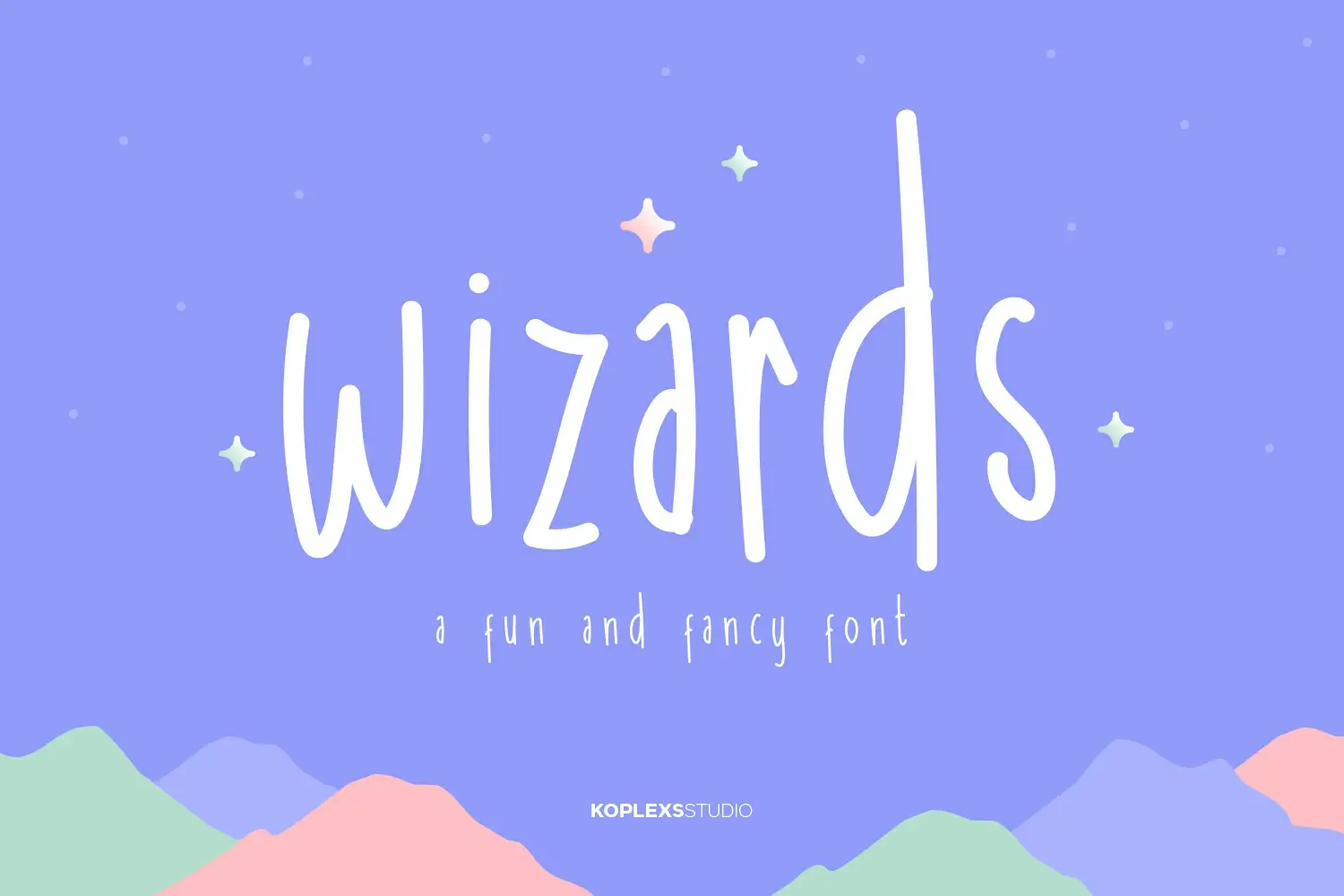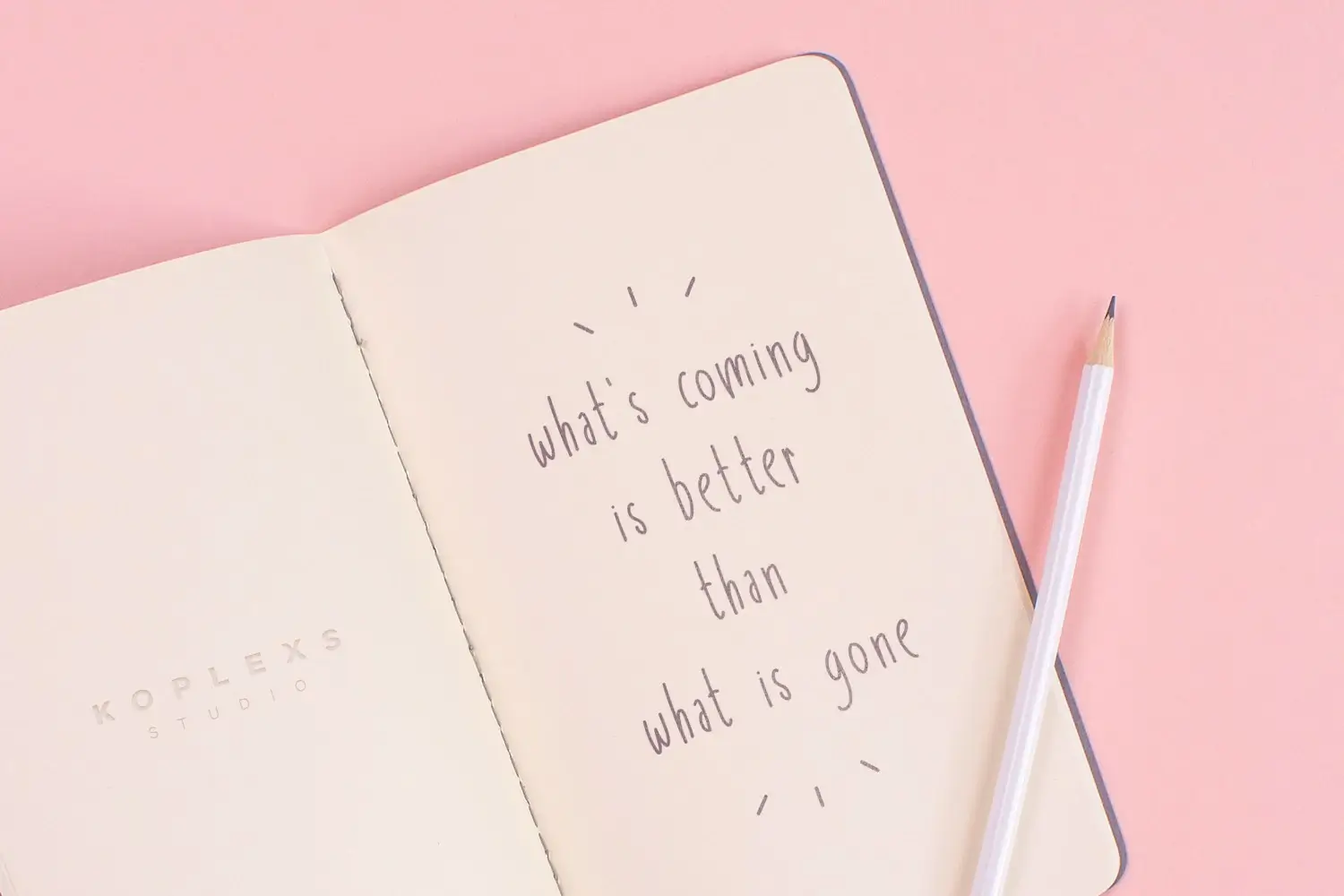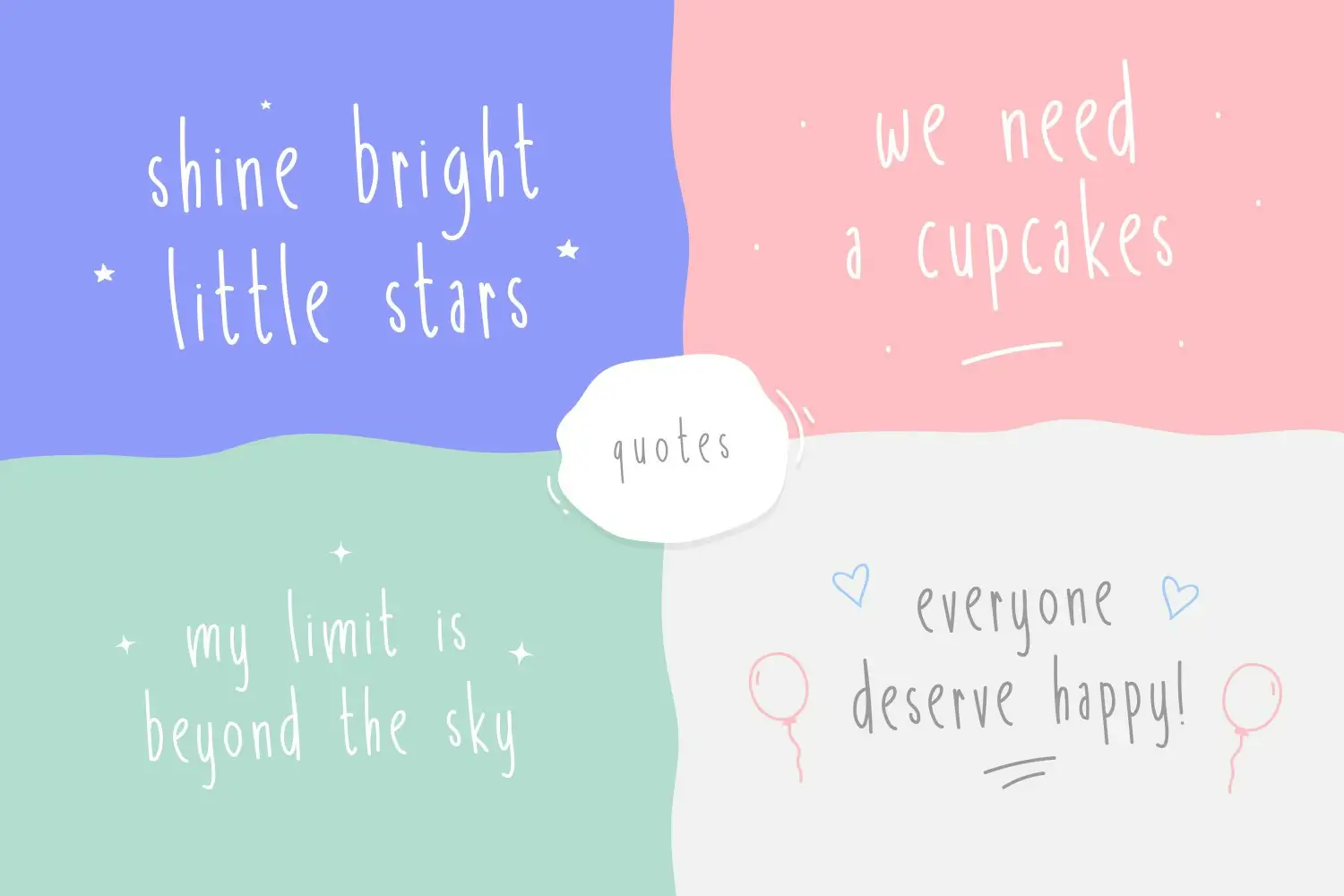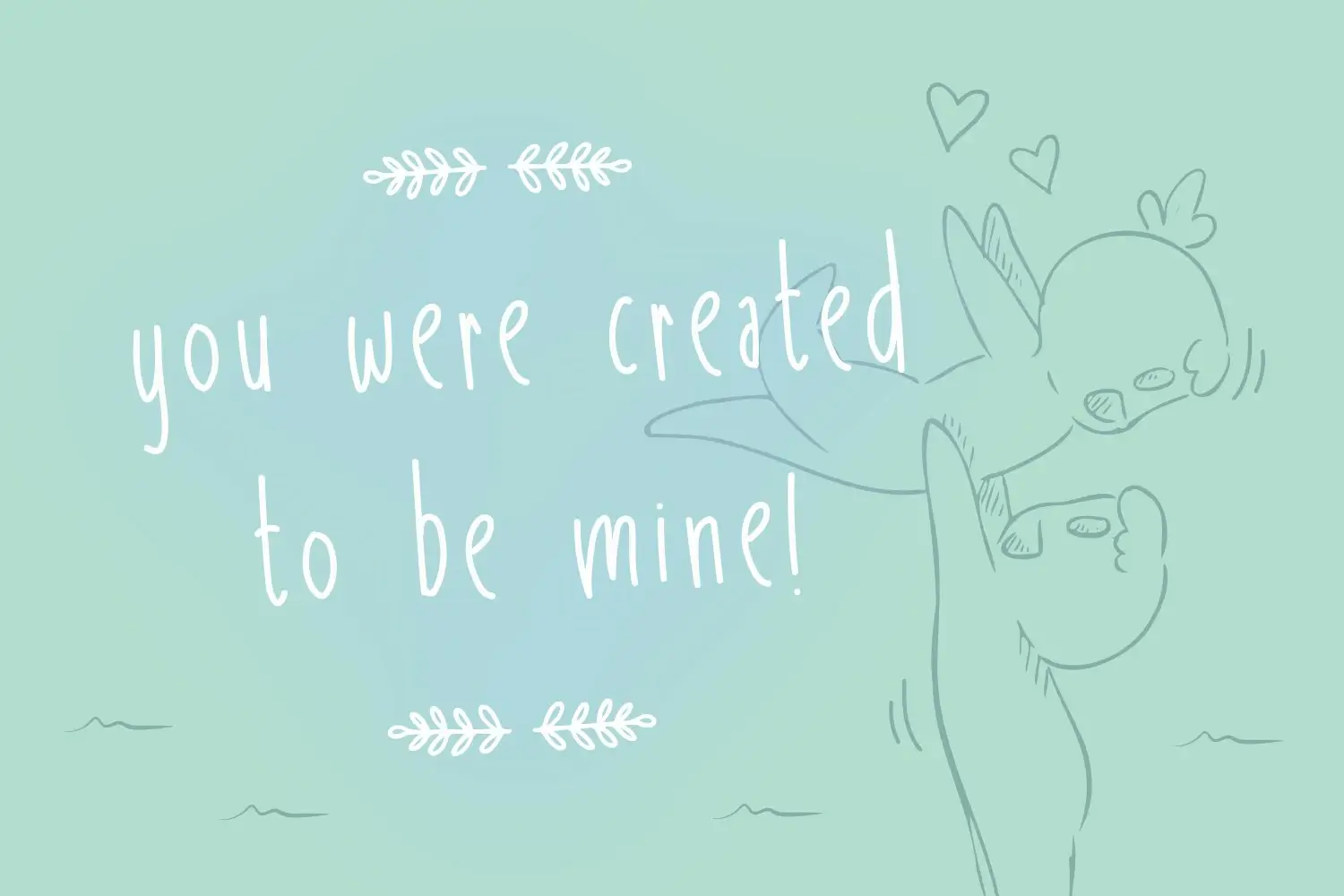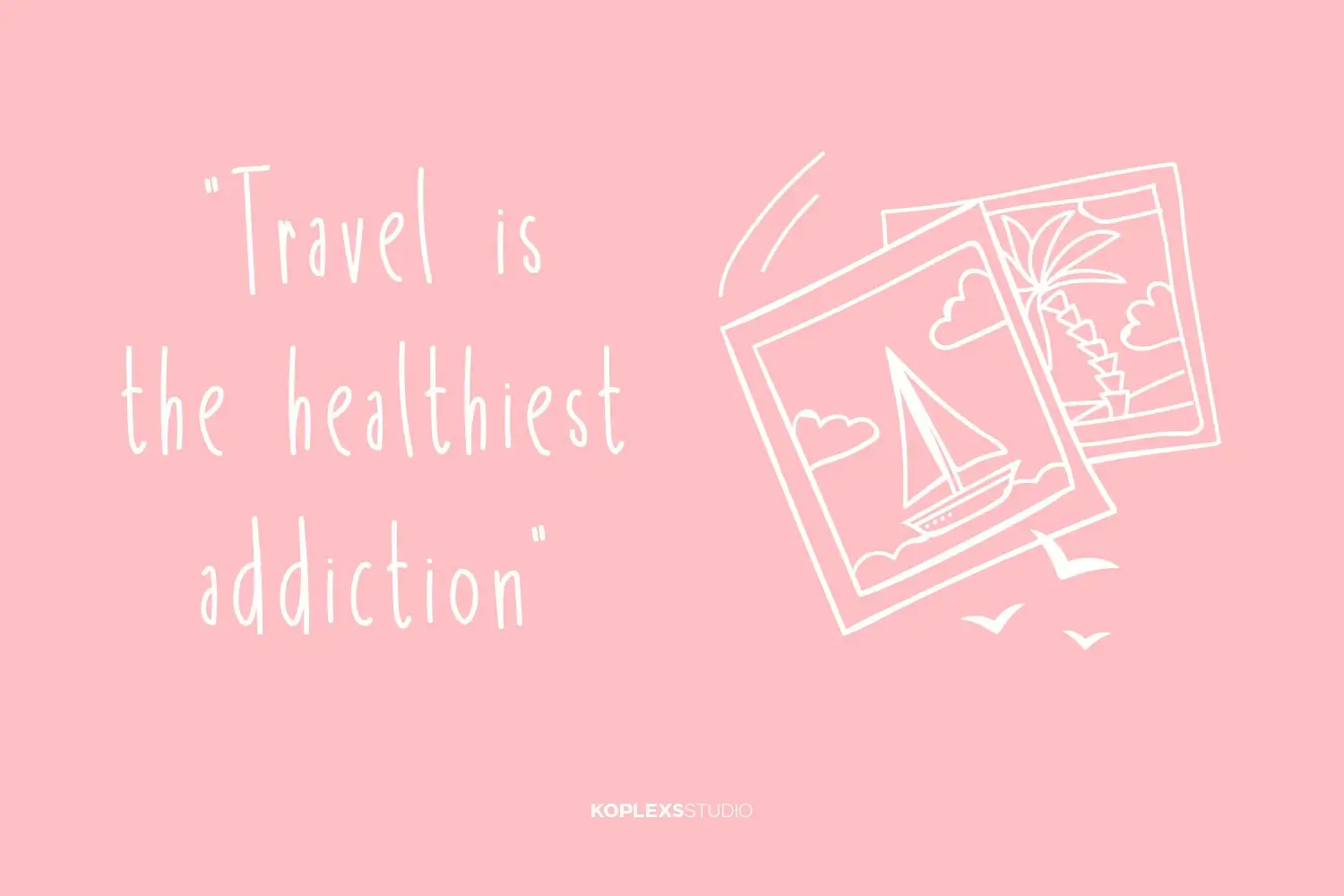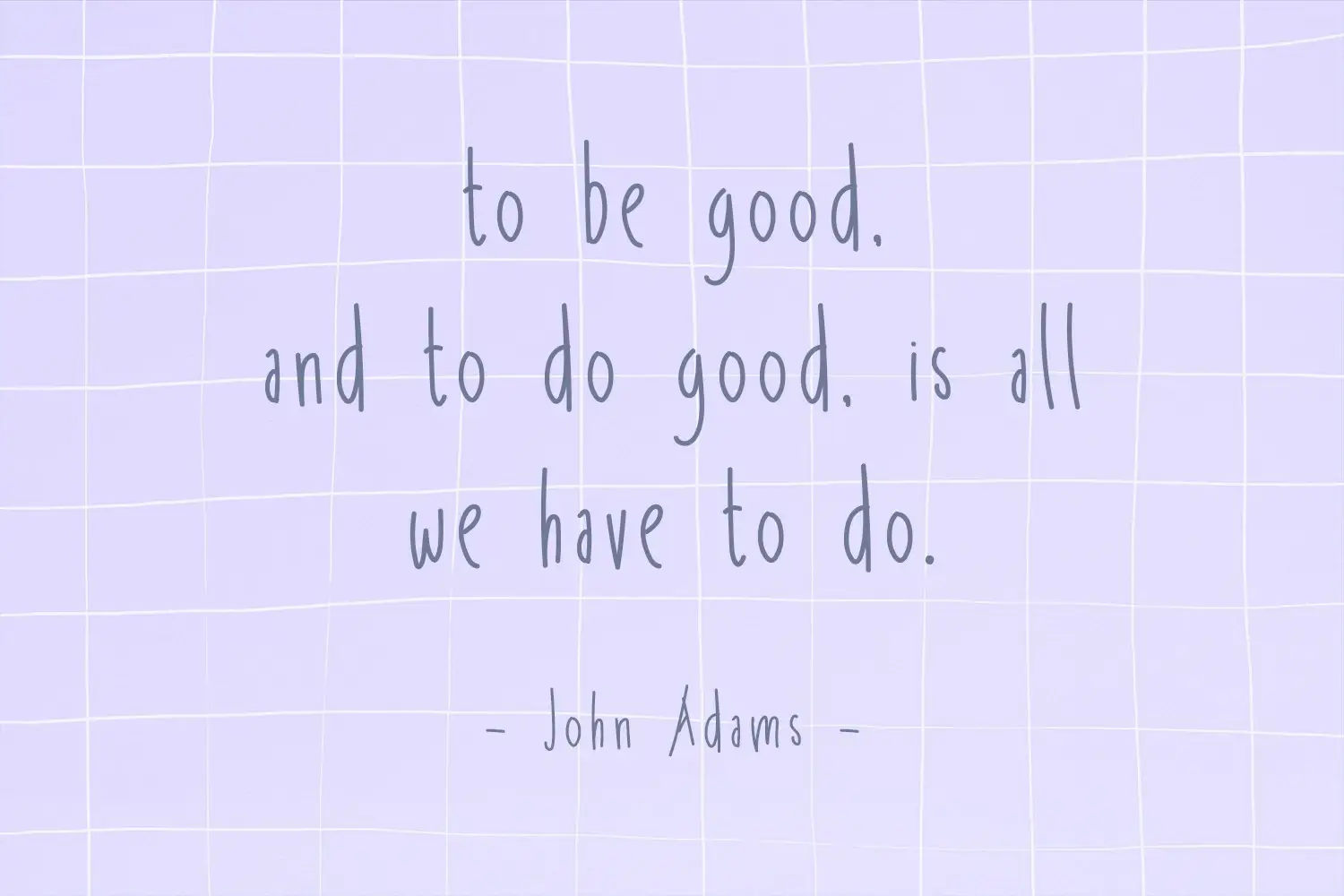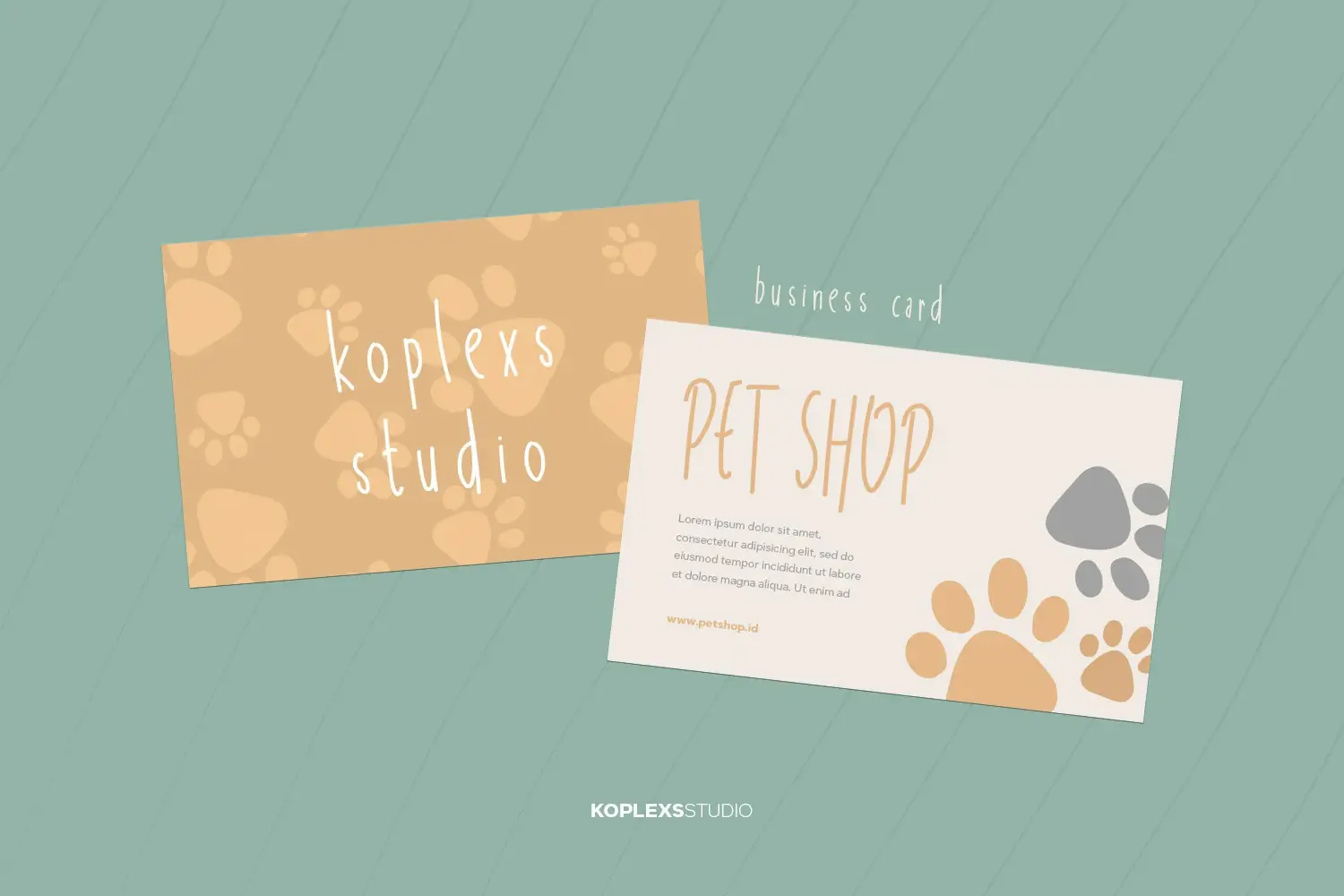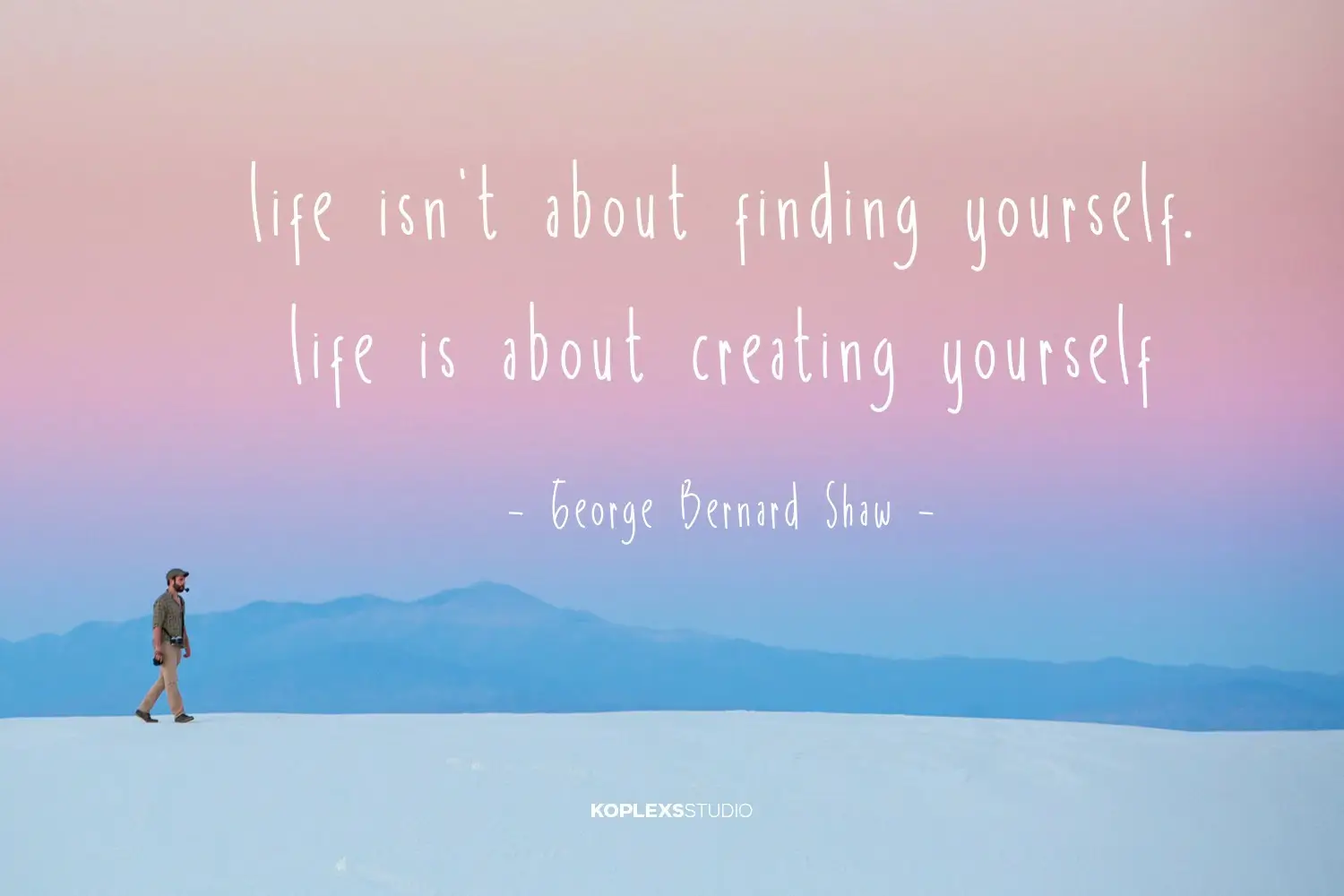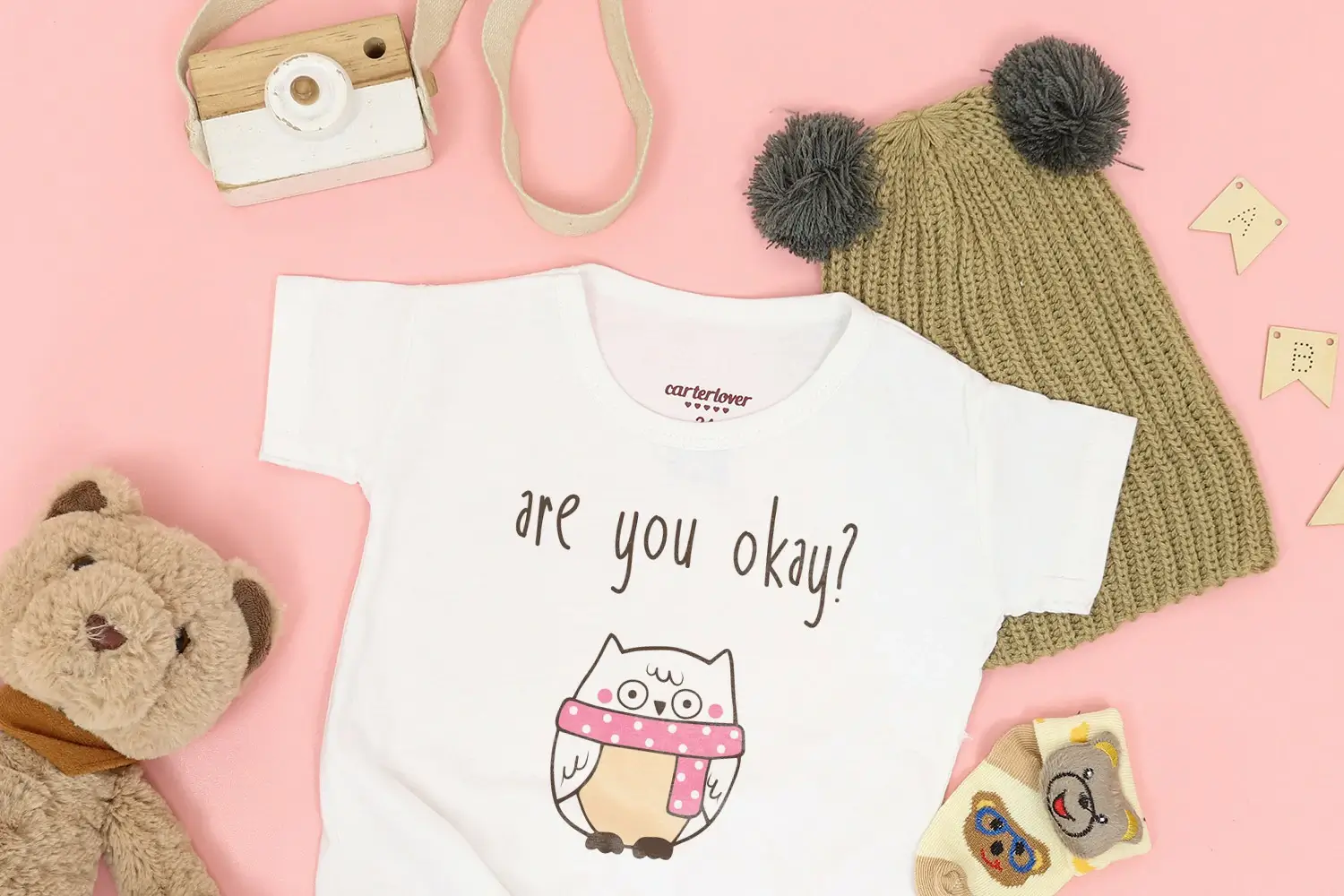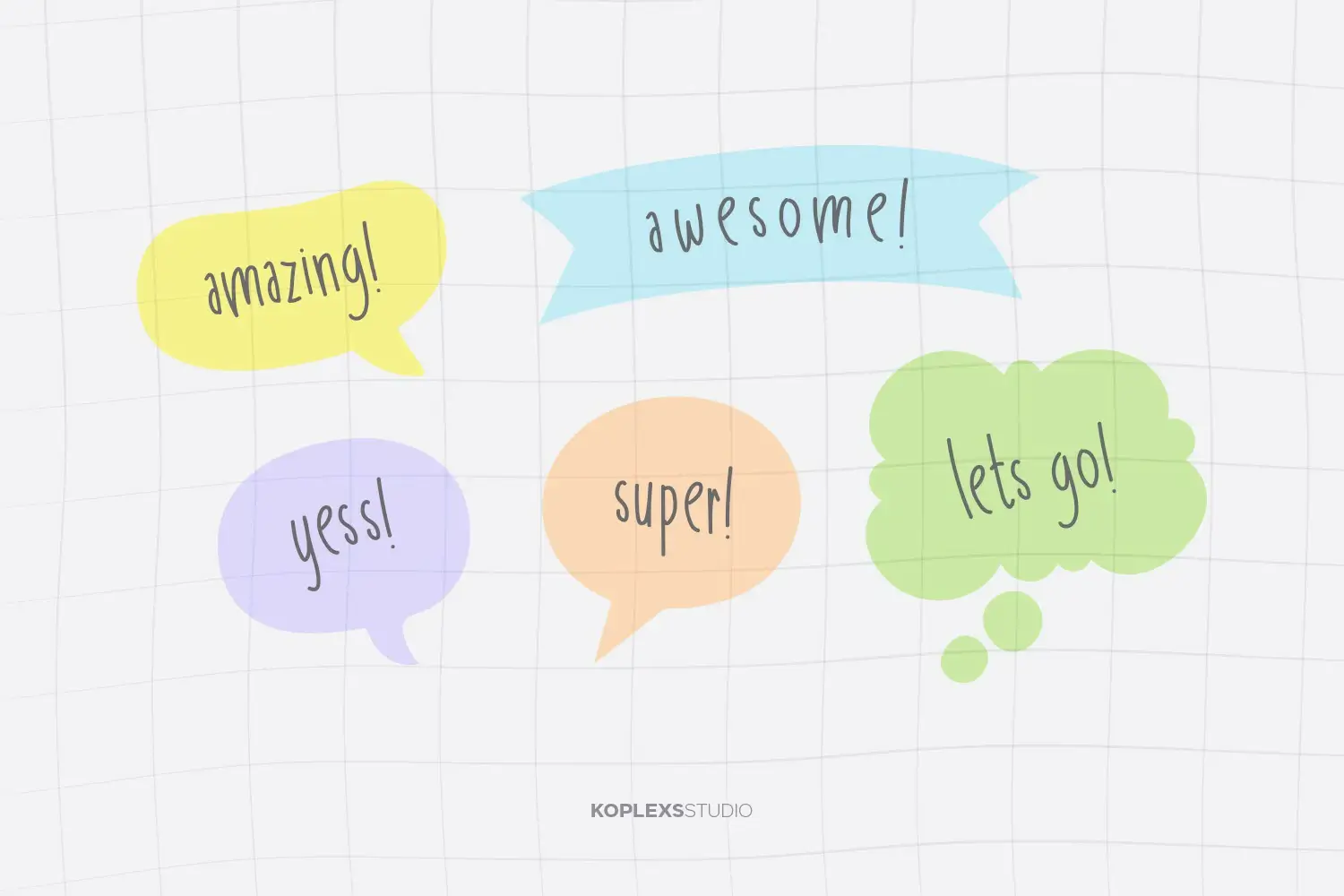
Wizards Font
Wizards Font is a playful display font with a magical, whimsical charm. Inspired by handwriting font styles, it features flowing lines, elegant curves, and a hand-drawn look that adds personality to any design. Perfect for logos, posters, invitations, and children’s media, this font brings creativity and fantasy to life. Its expressive style makes it ideal for eye-catching headlines and imaginative branding. With its unique blend of fun and elegance, Wizards Font turns text into a visual storytelling experience, making it a standout choice for creative projects.
Wizards Font
“Wizards” is a charming display font that blends fantasy and creativity into every letter. Inspired by handwriting font styles, this typeface carries a whimsical and magical feel, perfect for projects that aim to spark imagination and joy. Its flowing lines, elegant curves, and hand-drawn appearance make it ideal for designs that need a personal and artistic touch.
Each character in “Wizards” is carefully crafted to reflect a sense of movement and expression. The font features natural variations in stroke width, soft edges, and decorative elements that enhance its playful yet sophisticated look. While it maintains a lighthearted aesthetic, it also offers clarity and readability, especially at larger sizes, making it highly effective for titles, logos, posters, and other visual media.
As a display font, “Wizards” shines in creative contexts such as children’s books, fantasy-themed branding, party invitations, merchandise, and digital illustrations. It’s particularly useful for designers looking to add a magical or storybook vibe to their work. Whether used for print or screen, this font brings a unique personality that easily captures attention and evokes a sense of wonder.
Its handwriting font influence gives “Wizards” an authentic and approachable charm, allowing it to connect emotionally with the audience. The font doesn’t just communicate a message—it tells a story. With its enchanting design and versatile appeal, “Wizards” is more than just a typeface; it’s a tool for creating memorable and imaginative experiences through typography.
Key Characteristics Wizards Font:
1. Style :
• The font has a hand-drawn, cursive style that gives it a personal and friendly feel.
• It features smooth, flowing lines with slight variations in stroke weight, adding character and dynamism.
2. Lowercase Letters :
• The lowercase letters are fluid and connected, resembling natural handwriting.
• They have a casual yet refined appearance, with rounded forms and consistent spacing.
3. Uppercase Letters :
• The uppercase letters maintain the same flowing, cursive style but are more prominent and bold.
• Each letter has a unique, slightly exaggerated form, contributing to the font’s magical and enchanting aesthetic.
4. Numerals and Punctuation :
• The numerals are simple and clean, with a handwritten look that complements the overall style.
• Punctuation marks are also styled to match the font’s whimsical theme, ensuring consistency across all characters.
5. Visual Appeal :
• The font is visually engaging, with a mix of thick and thin strokes that create a balanced and harmonious design.
• It includes decorative elements like stars and sparkles, enhancing its fantastical appeal.
Wizards Font Usage:
• Ideal for : Branding, logos, invitations, posters, children’s books, and any project that requires a touch of magic and creativity.
• Mood and Tone : Playful, imaginative, and enchanting.
• Compatibility : Suitable for both digital and print media, offering versatility in various design applications.
Design Philosophy:
Wizards Font is crafted to bring a sense of wonder and charm to any text it adorns. Its unique blend of handwritten fluidity and elegant styling makes it perfect for capturing attention and evoking a sense of adventure and fantasy.
This font is a delightful choice for designers looking to add a magical touch to their projects, whether it’s for a whimsical logo, an enchanting invitation, or a storybook cover.